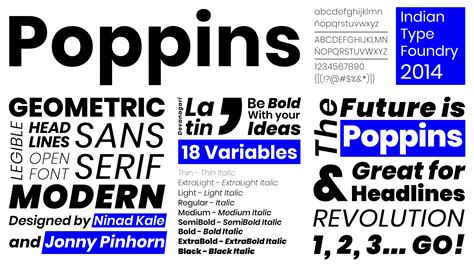
Thick Google Fonts - An Overview Of Designers' Most Popular Typefaces
What Are Thick Google Fonts?
Thick Google Fonts are a collection of typefaces designed specifically for use with Google's products. This collection of typefaces was designed to be used across all of Google's products, from Chrome to Gmail to Android. The typefaces are bold and thick, making them great for large-scale branding, headlines, and titles. Thick Google Fonts are especially popular among graphic designers and web developers who need to create unique and eye-catching designs that stand out from the crowd.
How To Use Thick Google Fonts
Popular Thick Google Fonts
Some of the most popular Thick Google Fonts include Montserrat, Roboto, Lato, and Open Sans. Each of these typefaces has its own unique look and feel, so you can choose a font that fits your project perfectly. Montserrat is a thick, bold font that is perfect for headlines and titles. Roboto is a modern, sans-serif typeface that is ideal for body text. Lato is a geometric sans-serif font that is perfect for branding and logos. And Open Sans is a modern, humanist typeface that is great for web design.
Tips For Choosing A Thick Google Font
When choosing a Thick Google Font, it's important to consider the size of the font and the weight of the typeface. The size of the font should depend on the size of the project, while the weight should depend on the amount of emphasis you want to place on the text. It's also important to consider the readability of the font; some fonts may be too thick or too thin to be easily read. Finally, make sure to consider the style of the font; some fonts may be more suited for certain projects than others.
Thick Google Fonts are a great way to add a unique and eye-catching look to your projects. With so many fonts to choose from, you can easily find a typeface that fits your project perfectly. Just be sure to consider the size, weight, readability, and style of the font before making your selection. With the right font, you can create a design that is sure to stand out from the crowd.